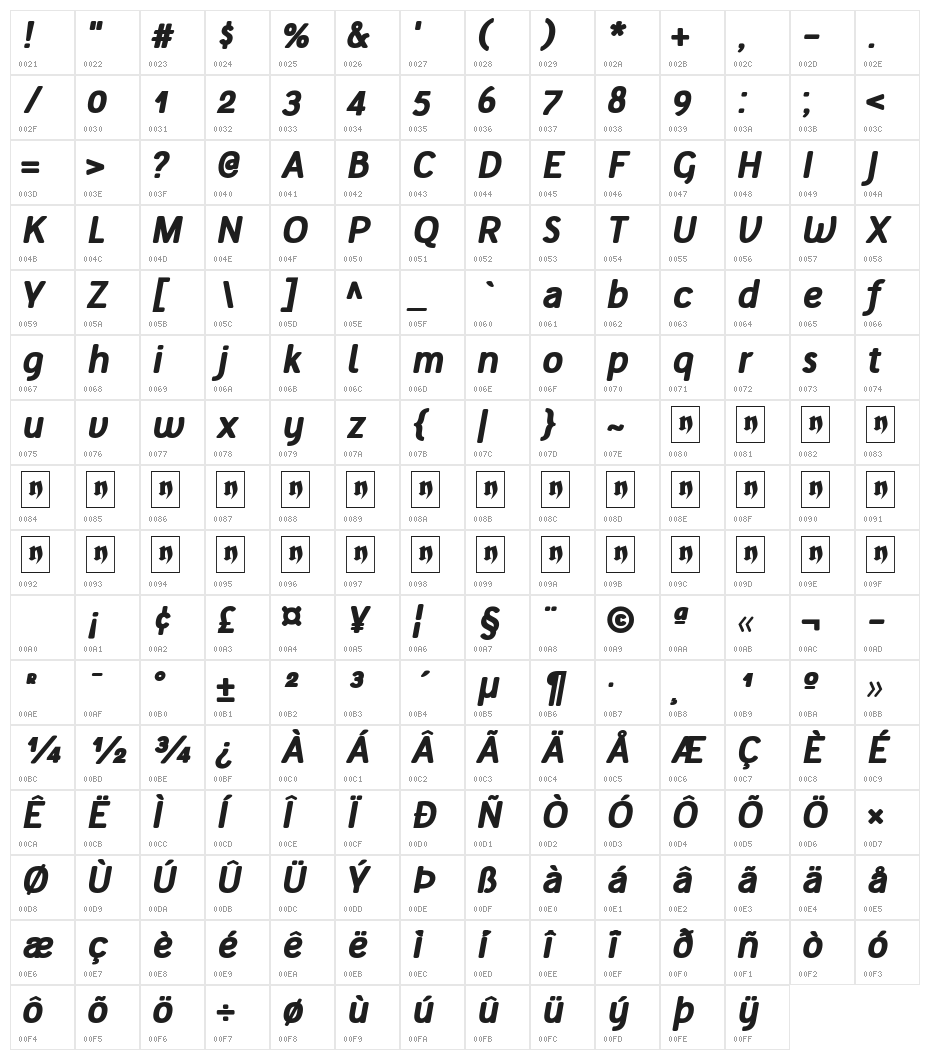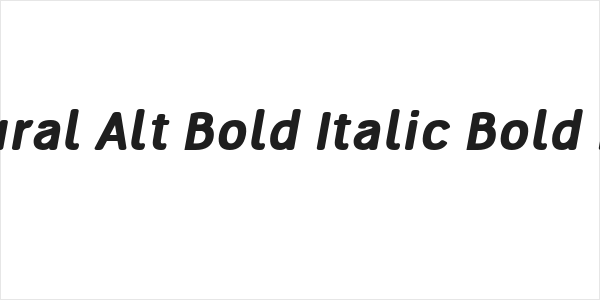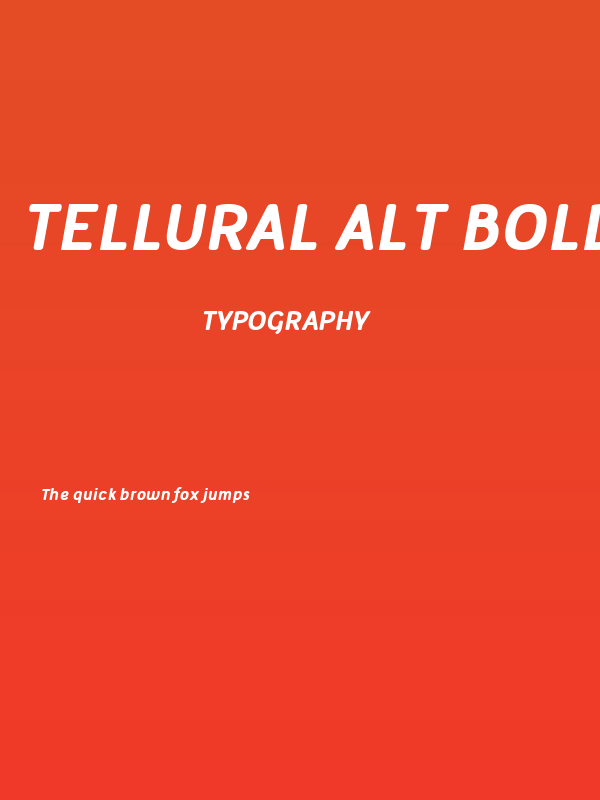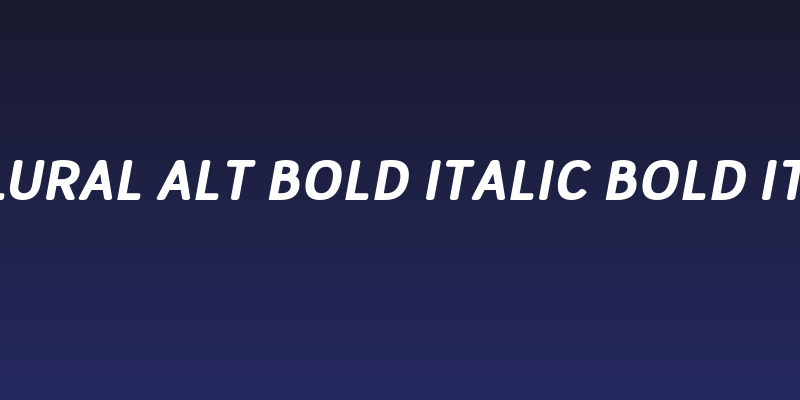
Tellural Alt Bold Italic Font
Tellural Alt Bold Italic Description
This font features a bold and italic style, characterized by its smooth curves and slightly condensed letterforms. The uppercase letters are strong and assertive, while the lowercase letters maintain a friendly and approachable appearance. The numerals are clear and well-defined, making them suitable for various applications. Special characters are distinct and harmonize well with the overall design. The font's consistent stroke width and moderate contrast give it a modern and dynamic feel, making it versatile for both digital and print media.